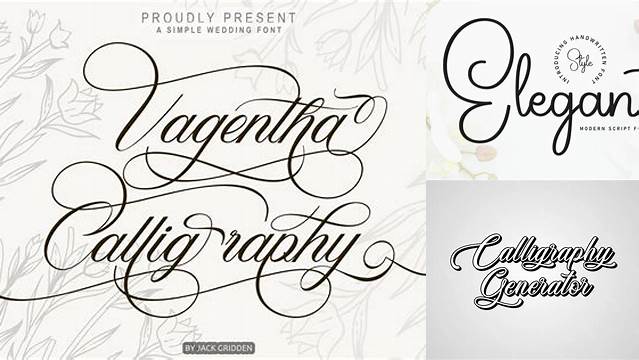
Free Elegant Script Font Generator: Create Stunning Designs
Are you looking to add a touch of elegance and sophistication to your designs? Do you want to create stunning invitations, logos, or social media graphics with beautiful script fonts? Well, you've come to the right place! In this article, we'll explore the world of elegant script fonts and how you can generate them for free. We'll dive into the best online tools, font pairings, and design tips to help you create visually appealing projects that capture attention. So, let's get started and unlock the secrets of elegant typography!
What is an Elegant Script Font?
Before we jump into generating these fonts, let's first understand what makes a script font elegant. Elegant script fonts are characterized by their flowing, cursive-like strokes that mimic the beauty of handwriting. These fonts often feature delicate curves, loops, and flourishes, giving them a refined and sophisticated appearance. They can evoke feelings of luxury, romance, and timelessness, making them perfect for various design projects.
Key Characteristics of Elegant Script Fonts
- Flowing Strokes: The defining feature of script fonts is their continuous, flowing strokes that create a sense of movement and fluidity. These strokes connect letters seamlessly, mimicking the natural flow of handwriting.
- Delicate Curves and Loops: Elegant script fonts often incorporate delicate curves and loops that add to their graceful appearance. These details create visual interest and enhance the font's overall aesthetic appeal.
- Varying Thickness: Many elegant script fonts feature variations in stroke thickness, adding depth and dimension to the letters. This variation can create a more natural and organic feel, similar to the strokes of a calligraphy pen.
- Flourishes and Swashes: Some script fonts include decorative flourishes and swashes that extend from the letters. These embellishments can add a touch of elegance and personality to your designs, making them stand out.
Types of Elegant Script Fonts
Elegant script fonts come in various styles, each with its unique characteristics and applications. Here are some common types:
- Calligraphy Fonts: These fonts closely resemble traditional calligraphy, with flowing strokes and elegant letterforms. They are often used for formal invitations, wedding stationery, and high-end branding.
- Cursive Fonts: Cursive fonts mimic the style of handwriting, with connected letters and a flowing rhythm. They are versatile and can be used for a wide range of projects, from logos to social media graphics.
- Formal Script Fonts: Formal script fonts have a refined and sophisticated look, often with delicate details and elegant letterforms. They are suitable for formal occasions, luxury branding, and elegant designs.
- Modern Script Fonts: Modern script fonts combine the elegance of traditional scripts with a contemporary twist. They often feature cleaner lines and a more streamlined appearance, making them ideal for modern designs.
Why Use Elegant Script Fonts?
Elegant script fonts offer a unique way to enhance your designs and create a lasting impression. Their flowing lines and graceful curves can add a touch of sophistication and personality to any project. Here are some key reasons why you should consider using elegant script fonts:
Conveying Elegance and Sophistication
Elegant script fonts are the perfect choice when you want to convey a sense of elegance and sophistication. Their refined letterforms and flowing strokes evoke a feeling of luxury and grace, making them ideal for high-end branding, formal invitations, and elegant designs. Whether you're designing a wedding invitation or a luxury logo, elegant script fonts can help you create a visually stunning and memorable piece.
Imagine you're designing a logo for a high-end jewelry brand. Using an elegant script font can instantly communicate the brand's commitment to quality and sophistication. The flowing lines and delicate curves of the font can evoke the sparkle and shine of precious gems, creating a visual identity that resonates with the brand's target audience.
Creating a Personal and Human Touch
In a world dominated by digital communication, elegant script fonts can add a personal and human touch to your designs. Their handwritten appearance creates a sense of warmth and authenticity, making your message feel more personal and engaging. This is especially important for projects where you want to establish a connection with your audience, such as thank you cards, handwritten notes, and personalized gifts.
Consider using an elegant script font for a thank you card. The handwritten style of the font can convey your gratitude in a more sincere and heartfelt way than a standard block font. The recipient will appreciate the extra effort you put into choosing a font that reflects the personal nature of the message.
Versatility in Design Projects
Elegant script fonts are incredibly versatile and can be used in a wide range of design projects. From wedding invitations and logos to social media graphics and website headers, these fonts can add a touch of elegance and style to any project. Their versatility makes them a valuable asset in any designer's toolkit.
With the free online font generators and design tips shared in this article, you're well-equipped to create elegant and captivating designs. Remember to choose fonts that align with your project's purpose, pair them effectively, and ensure legibility. Happy designing, guys!